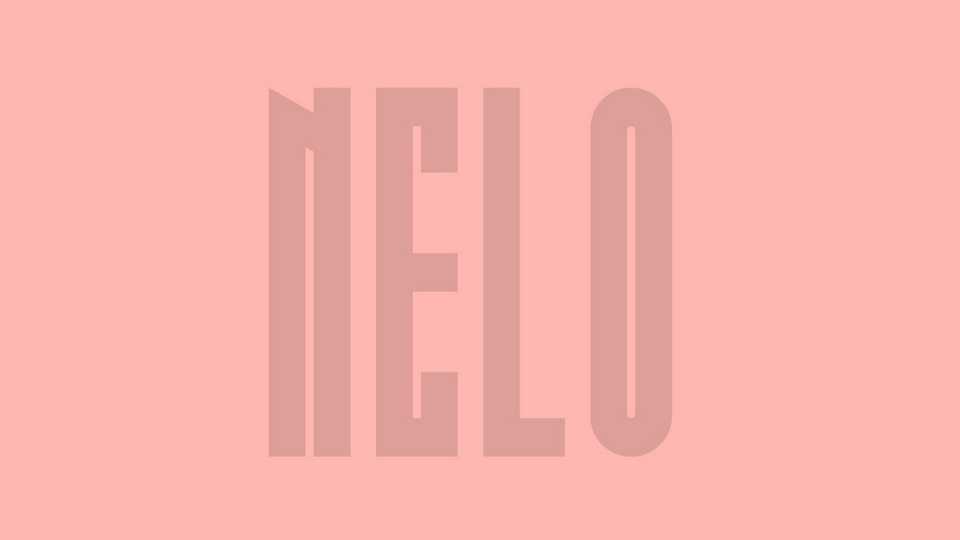
Download Nelo font, an extremely condensed modern display typeface with a bold personality. Nelo font is perfect for giving strength and power of attraction for short texts and large sizes.
Designer: DaeDsgn